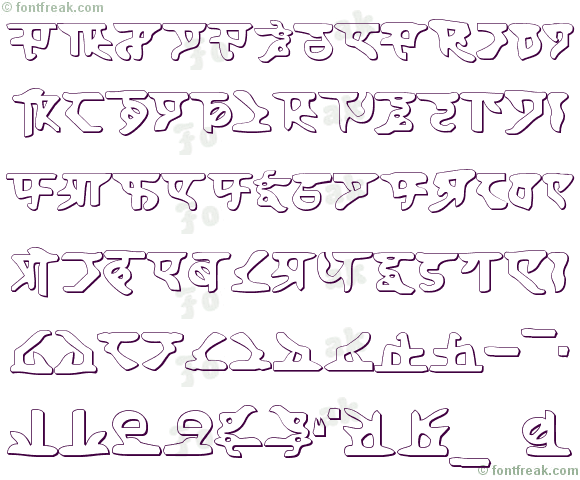
Homeworld Shadow
About Homeworld Shadow
Homeworld Shadow is a distinctive decorative font crafted by Daniel Zadorozny, categorized under display fonts. This typeface features a unique, futuristic style that evokes a sense of adventure and exploration, making it perfect for a variety of creative projects. With its bold strokes and shadowed outlines, the font showcases a medium to heavy stroke weight that provides a strong visual presence. The contrasting elements between the solid and shadowed portions create an engaging depth, while the spacing is thoughtfully designed to enhance readability without sacrificing its artistic flair.
Ideal use cases for the Homeworld Shadow font include video game artwork, where its sci-fi appeal can resonate with fans and gamers. Additionally, it can serve as a striking choice for movie posters, particularly in the action or adventure genres, where it can capture attention and convey a sense of excitement. Graphic designers might also find this font suitable for themed event invitations, such as sci-fi conventions or gaming tournaments. Small business owners in niche markets, such as gaming cafes or comic book shops, can utilize this font for branding materials, signage, and promotional content. Content creators looking to add a unique touch to their multimedia projects will appreciate the font's versatility and character.
What sets the Homeworld Shadow font apart is its ability to blend artistic creativity with functional design. It stands out not only for its striking visual appeal but also for its adaptability across various contexts. Whether you're looking for an eye-catching headline or a memorable logo, the Homeworld Shadow font free download offers a fresh and exciting option that can elevate your designs and capture your audience's imagination.